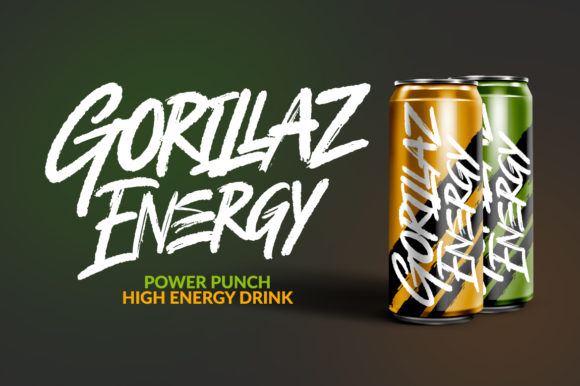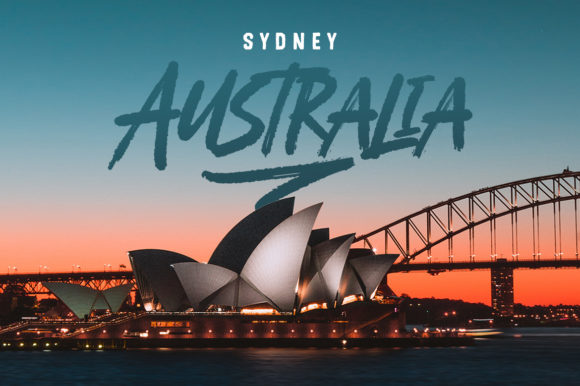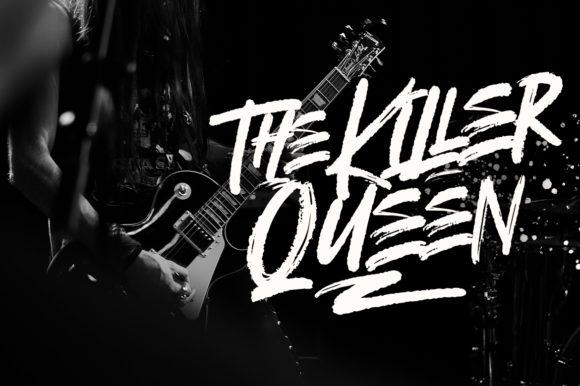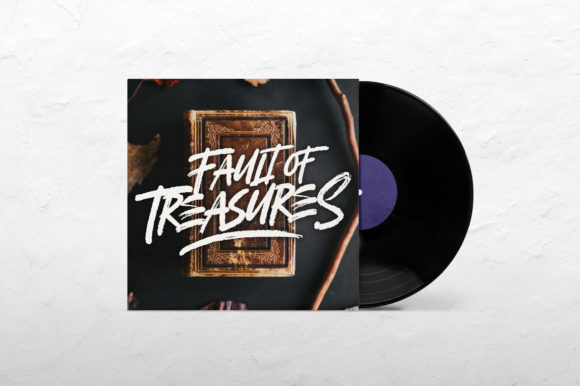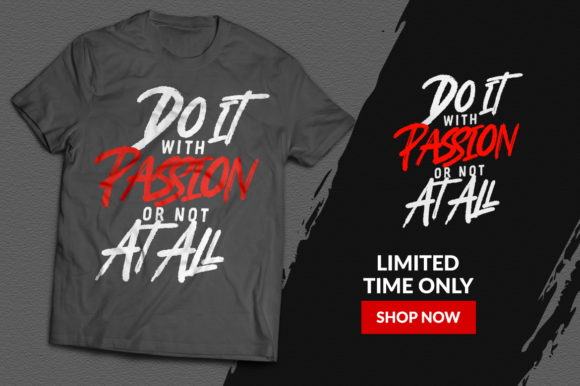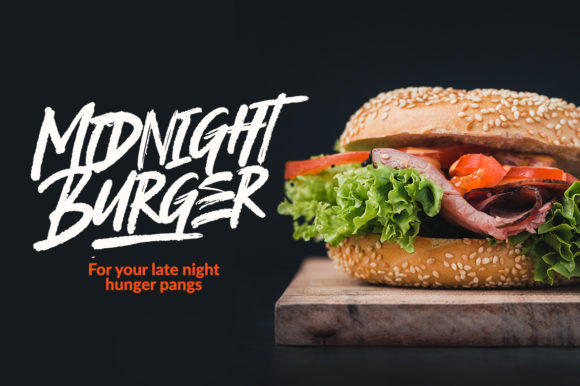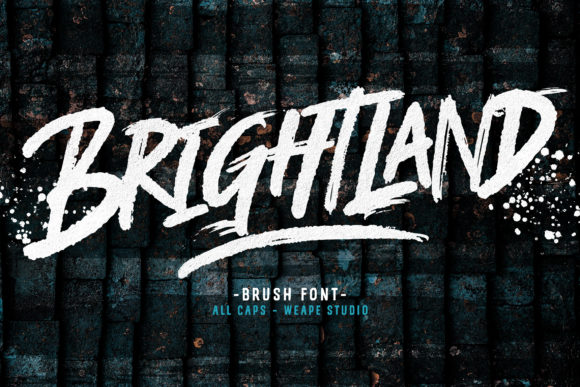
The Urban Twist: Unleashing the Power of Brightland Font
I’ll never forget the time I was working on a project for a trendy boutique hotel. My client wanted a bold, eye-catching logo that screamed urban chic, but I was struggling to find the right font. That’s when I stumbled upon Brightland Font, and it was love at first sight! 💡
With its bold and powerful display, Brightland added an instant urban twist to my design, and my client was thrilled. In this article, I’ll share my honest review of Brightland Font, provide a practical guide on how to use it, and explore similar fonts that can elevate your design game.
• 💥 **Bold and powerful display**: Brightland Font packs a punch with its bold and powerful display, making it perfect for headlines, titles, and logos.
• 🌆 **Urban feel**: The font’s urban twist adds a touch of edginess to any design project, making it ideal for modern and trendy brands.
• 🎨 **Highly versatile**: Brightland Font can be used for a wide range of design projects, from branding and advertising to packaging and signage.
• 👍 **Easy to read**: Despite its boldness, Brightland Font is surprisingly easy to read, even at smaller sizes.
• ⚠️ **Limited use in body text**: While Brightland Font is amazing for headlines, it may not be the best choice for body text due to its boldness and urban feel.
• 🤔 **Some letter combinations**: Occasionally, certain letter combinations may not flow as smoothly as you’d like, but this can be mitigated with careful typography.
If you love Brightland Font, you might also enjoy these similar fonts that offer a similar urban twist:
• Maison Neue: A modern sans-serif font with a sleek and sophisticated feel.
• Akzidenz-Grotesk: A bold and geometric font with a strong urban presence.
• Montserrat: A geometric sans-serif font with a urban and industrial feel.
• Arial Black: A bold and condensed font with a strong, urban personality.
Designer Inspiration: The Story Behind Brightland Font
Brightland Font was designed by a team of creatives who wanted to create a font that captured the essence of urban living. Inspired by cityscapes, street art, and modern architecture, Brightland Font is a reflection of the bold and vibrant spirit of the city.
Q: What is Brightland Font best used for?
A: Brightland Font is best used for headlines, titles, and logos where a bold and urban feel is desired.
Q: Can I use Brightland Font for body text?
A: While Brightland Font can be used for body text, it may not be the best choice due to its boldness and urban feel. It’s better suited for headlines and titles.